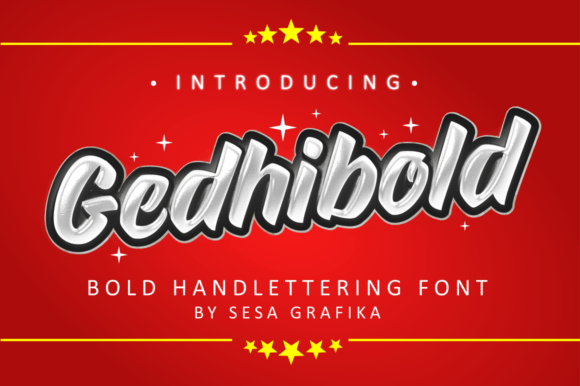
Journey into the world of Gedhibold, a retro groovy display font that oozes vintage charm and contemporary appeal. This captivating font will transport you back in time, adding a touch of nostalgia to your creative projects.
Unleash your inner artist and explore the endless possibilities of Gedhibold. Its meticulously crafted letters exude a timeless elegance that will elevate your designs to new heights. From captivating headlines that demand attention to eye-catching logos that leave a lasting impression, Gedhibold will transform your words into visual masterpieces.
Step into the limelight with Gedhibold, the font that commands attention. Its bold and confident strokes are perfect for creating statements that resonate with your audience. Whether you're designing social media posts, product packaging, or wedding invitations, Gedhibold will ensure your message shines through with unmistakable style.
Embrace the versatility of Gedhibold, a font that adapts seamlessly to your creative vision. Its retro charm adds a touch of authenticity to vintage-inspired designs, while its contemporary edge keeps your creations feeling fresh and modern. Experiment with different sizes, colors, and layouts to discover the endless possibilities that await you.
Indulge in the beauty of Gedhibold, a font that evokes emotions and sparks conversations. Its carefully crafted curves and delicate details create a visual harmony that captivates the senses. Let Gedhibold tell your story with its unique character, leaving an unforgettable impression on all who encounter it.